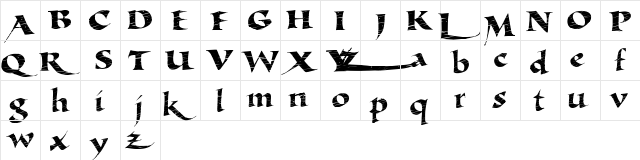
LHFLisaDistressed Medium
Design Context for LHFLisaDistressed Typeface
LHFLisaDistressed embraces imperfection — its rough, textured character adds raw authenticity to designs that want to feel lived-in and unconventional.
Suited to punk-influenced zines, underground music branding, streetwear, and raw, anti-corporate design.